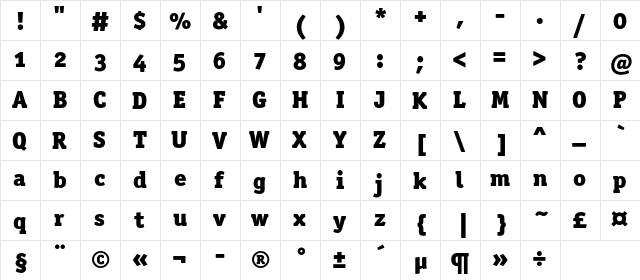
OfficinaSerifBlackOSC Regular
Design Context for OfficinaSerifBlackOSC Typeface
OfficinaSerifBlackOSC carries the refined structure of traditional serif typography, with bracketed terminals and considered proportions that communicate credibility and craft.
Pro Tip: Use OfficinaSerifBlackOSC for editorial body copy and considered headline work. Pair with a neutral sans for UI elements or captions to create a classic hierarchy.